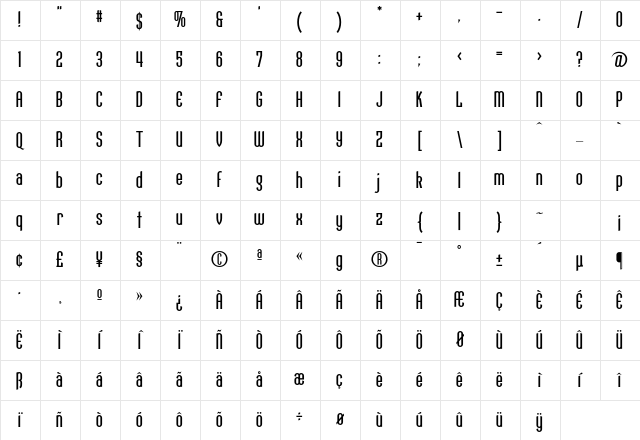
Conques Demi
Style: Demi
Conques Family
Design Context for Conques
Conques is a composed and adaptable typeface that performs quietly and consistently across a wide range of design contexts.